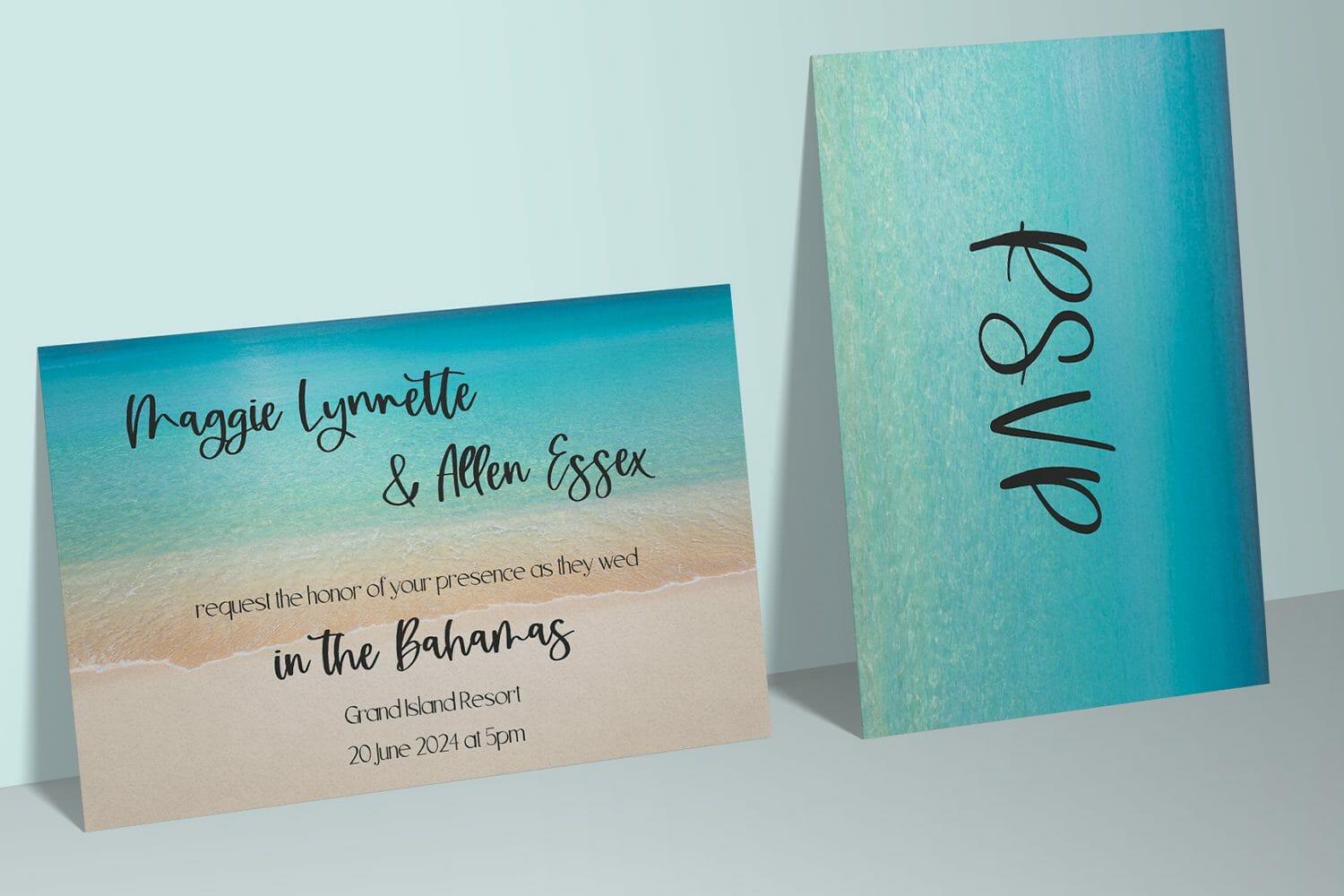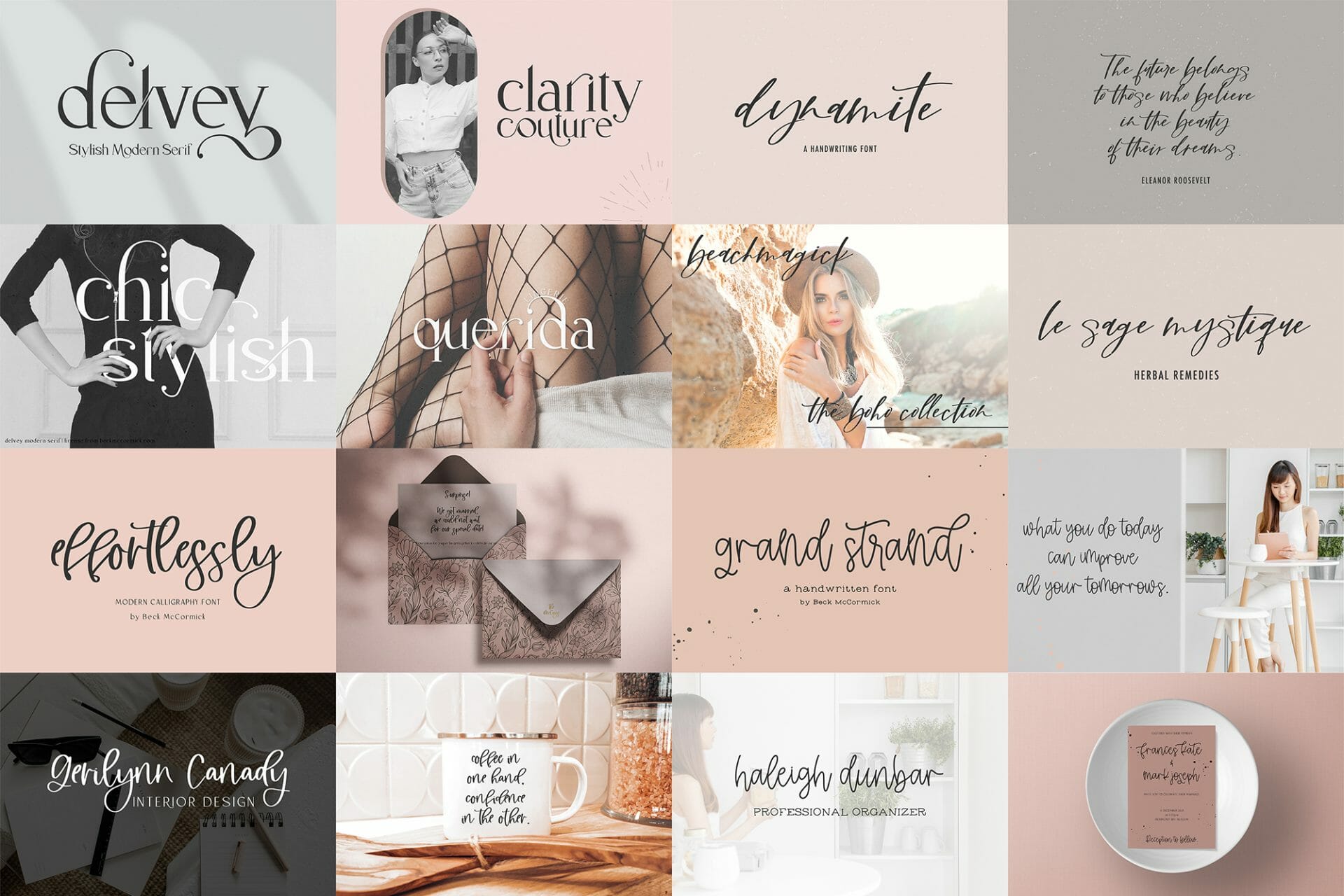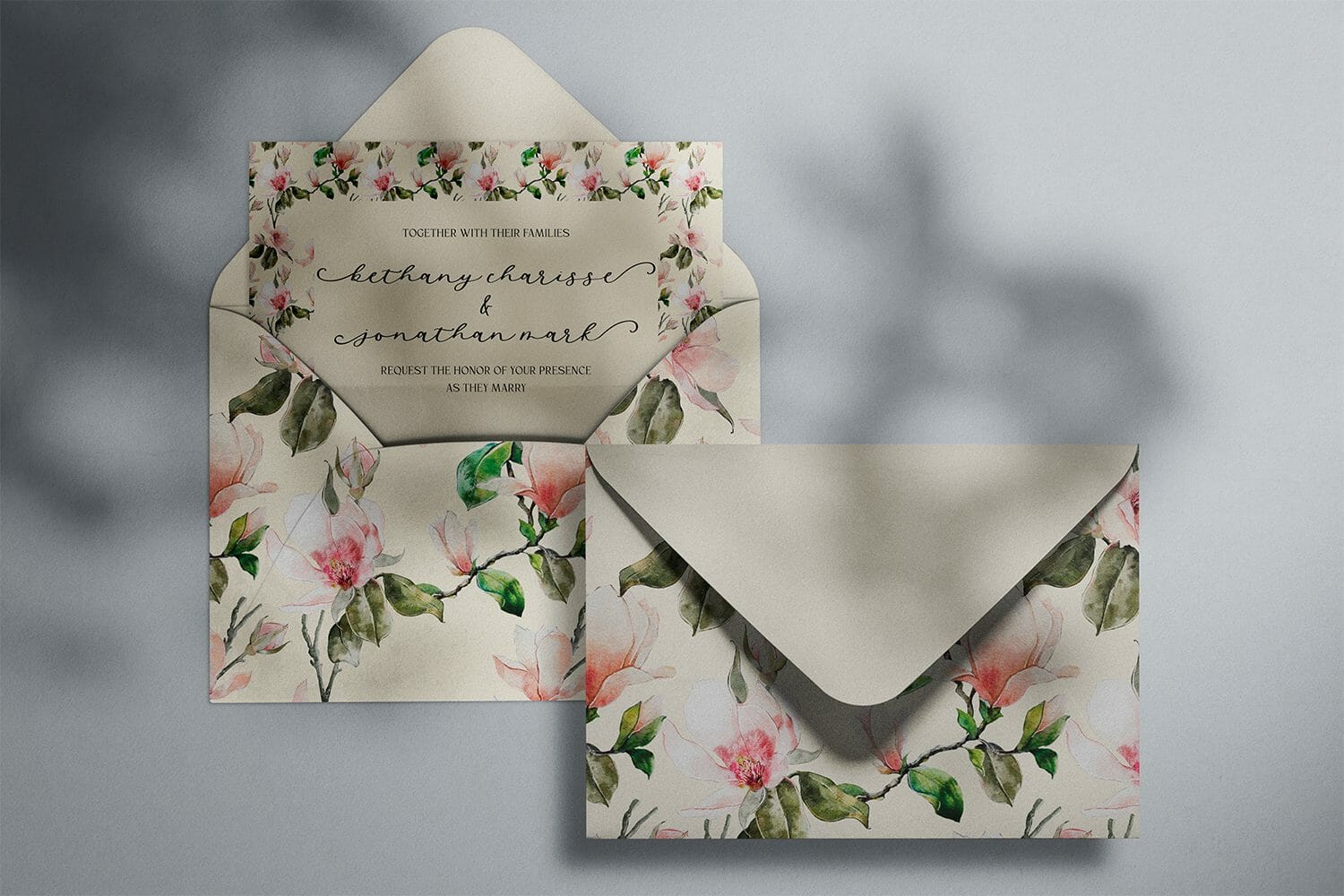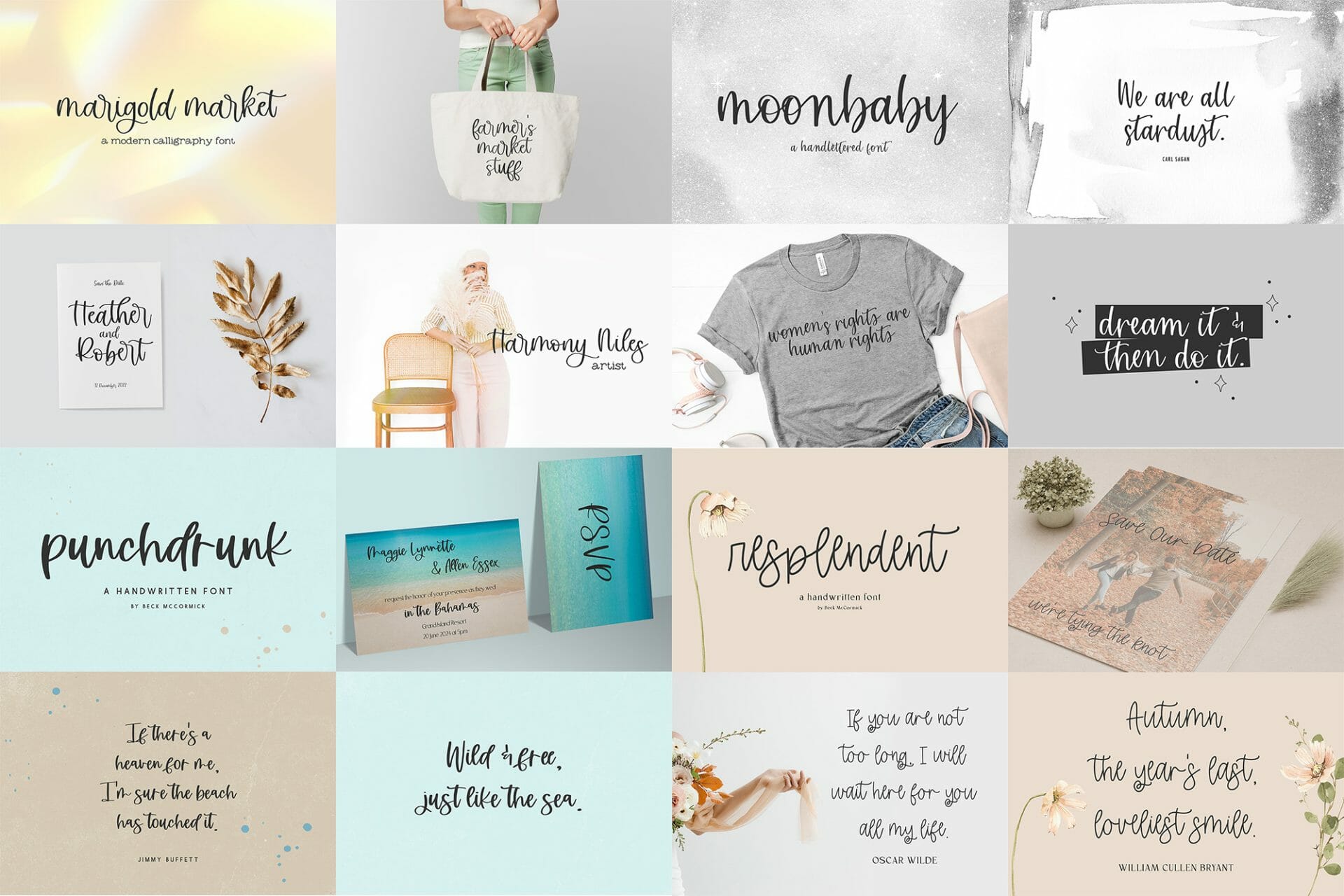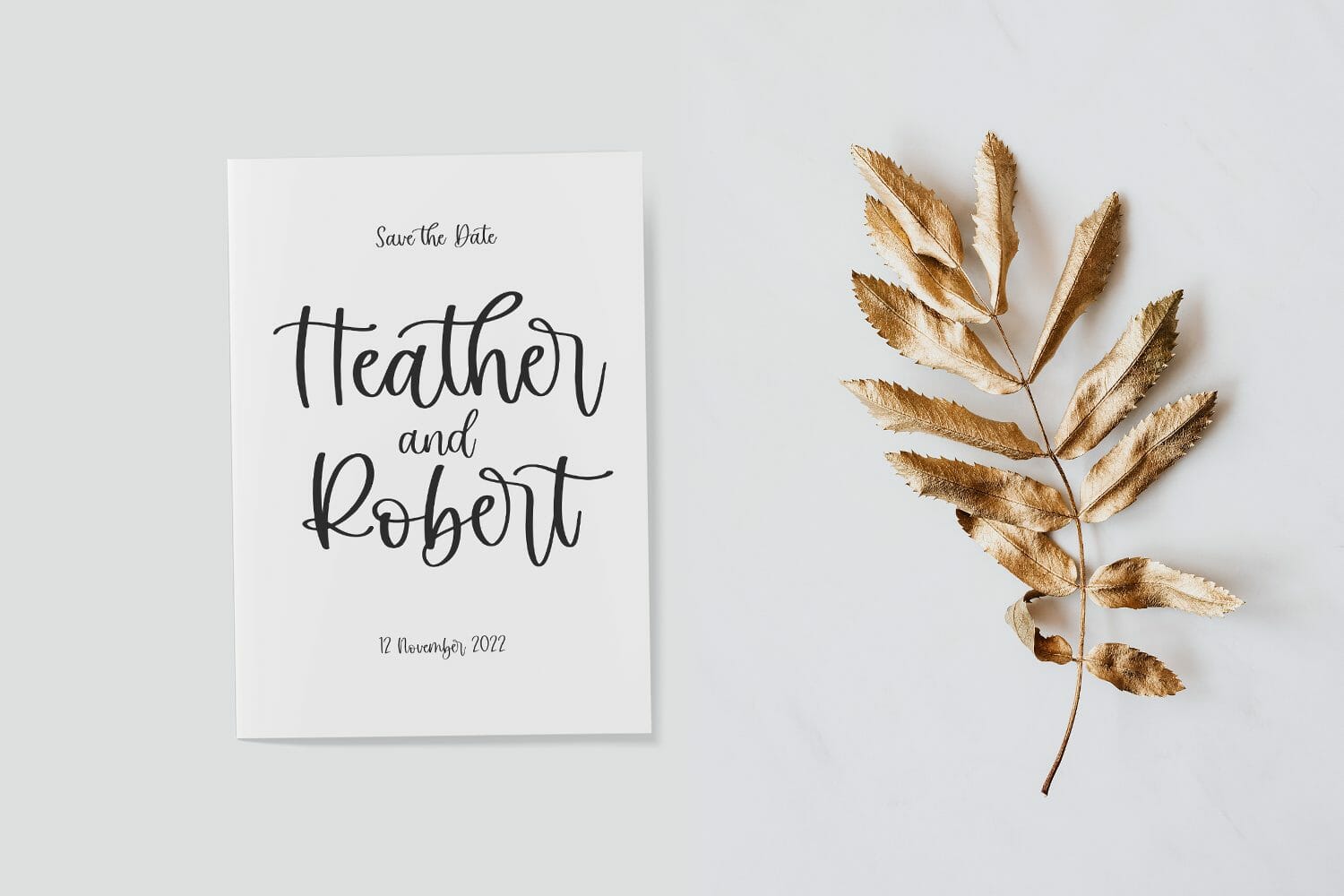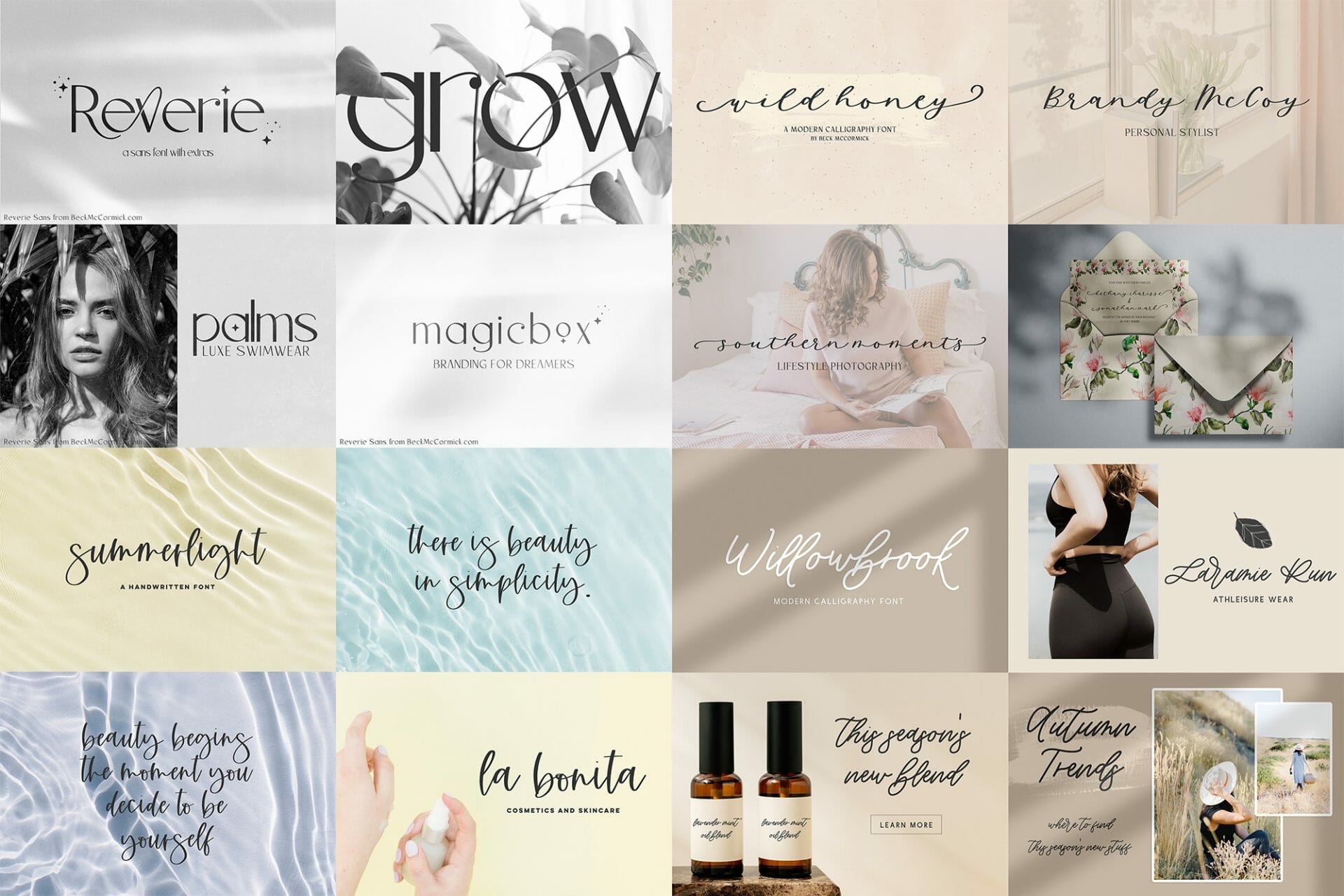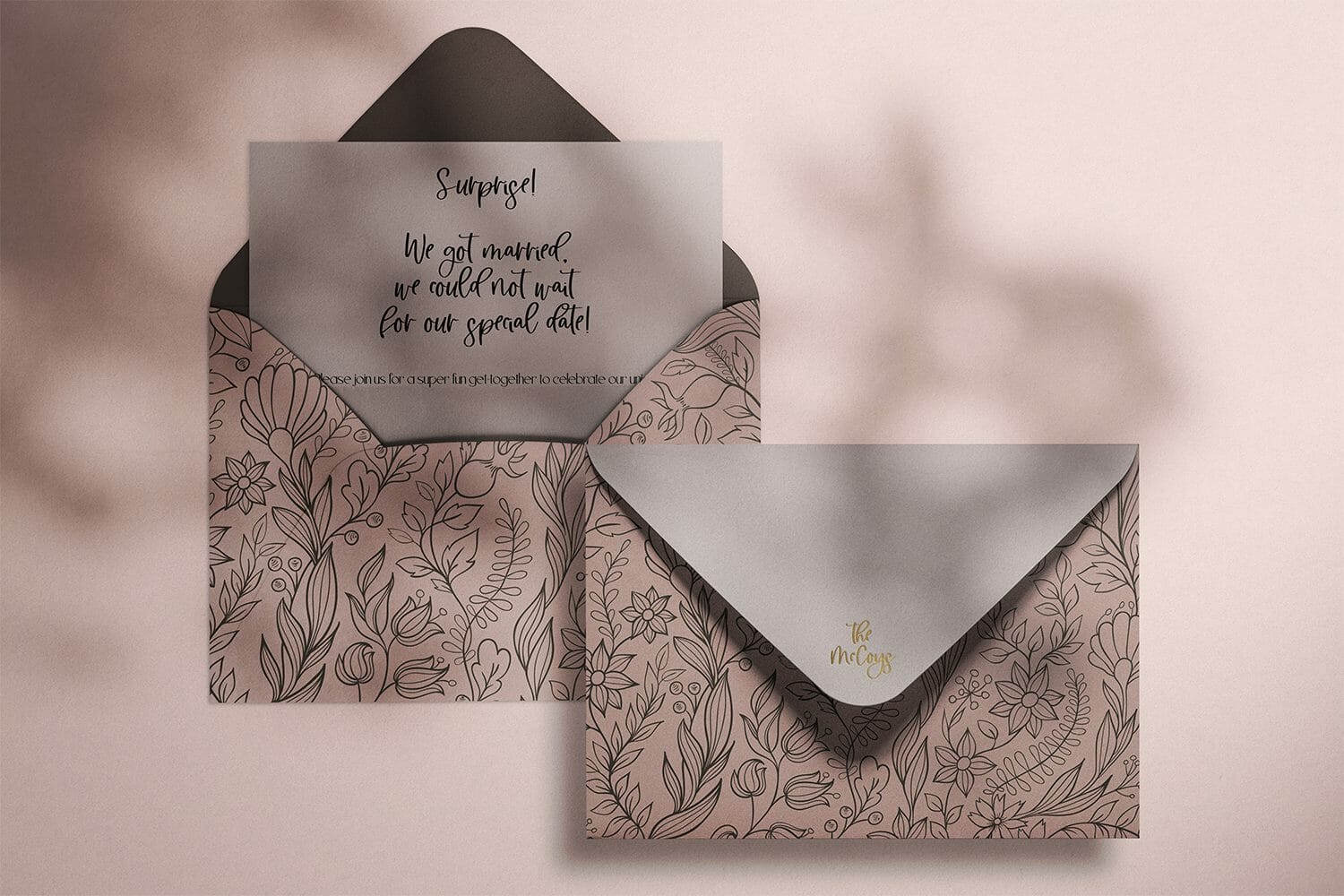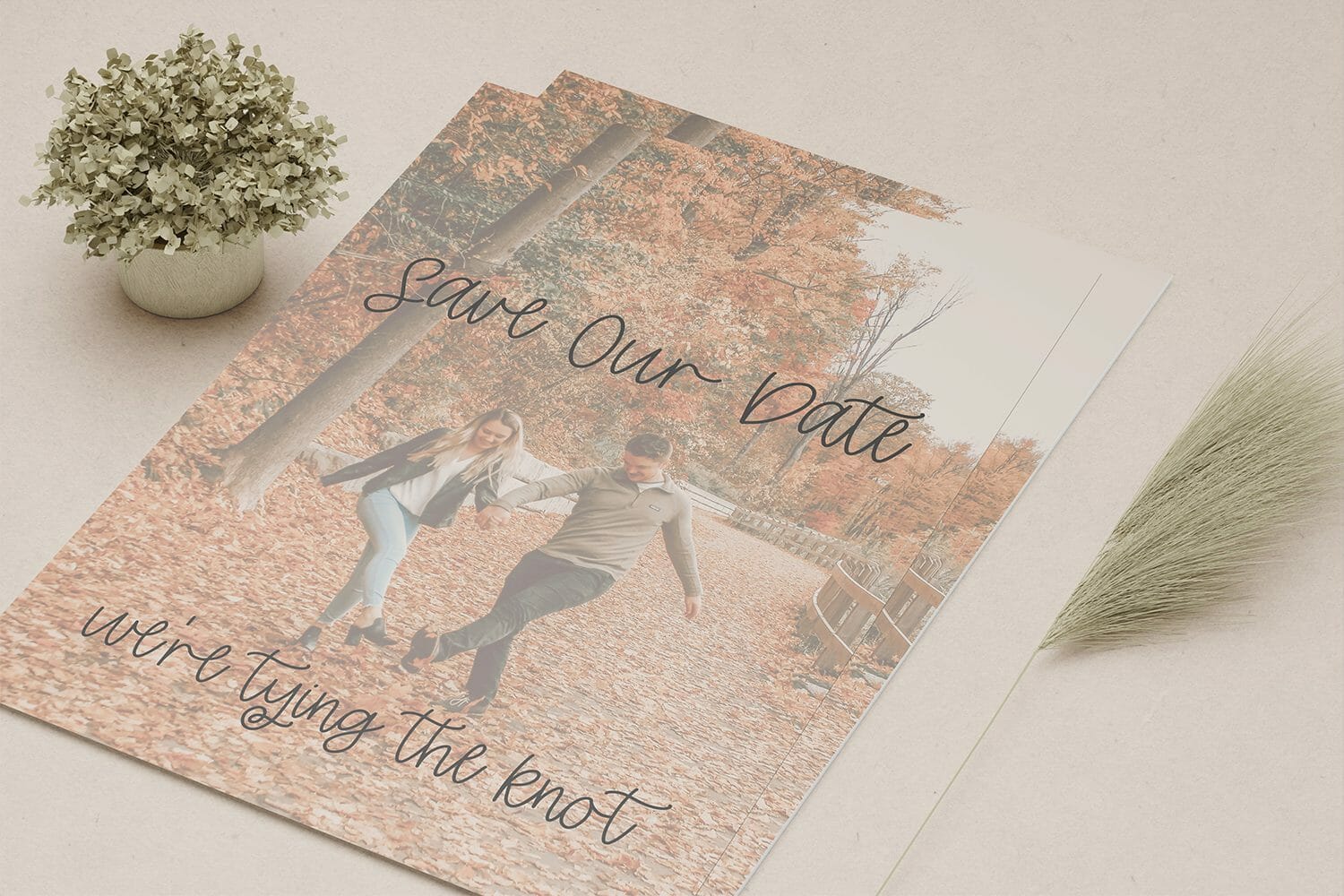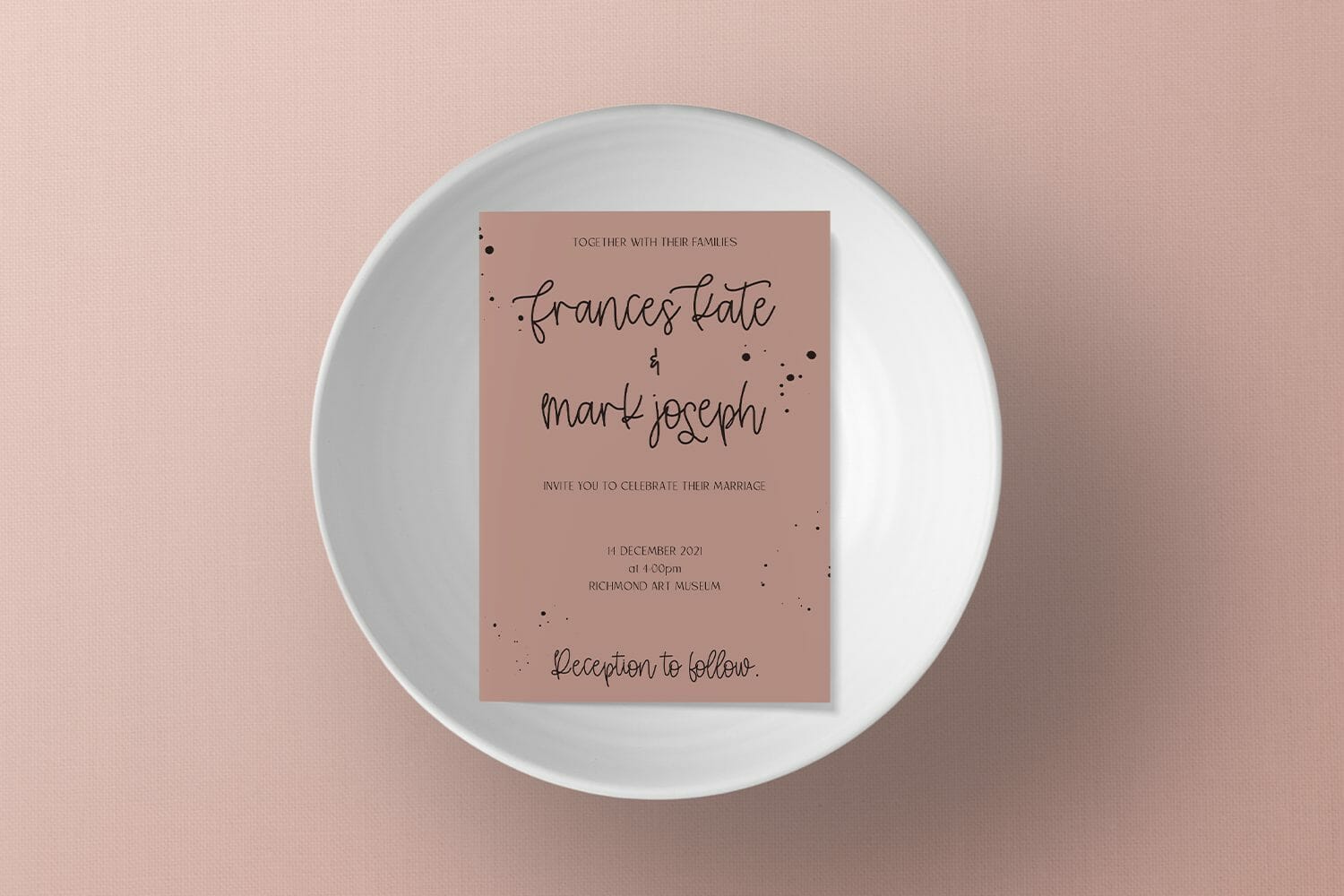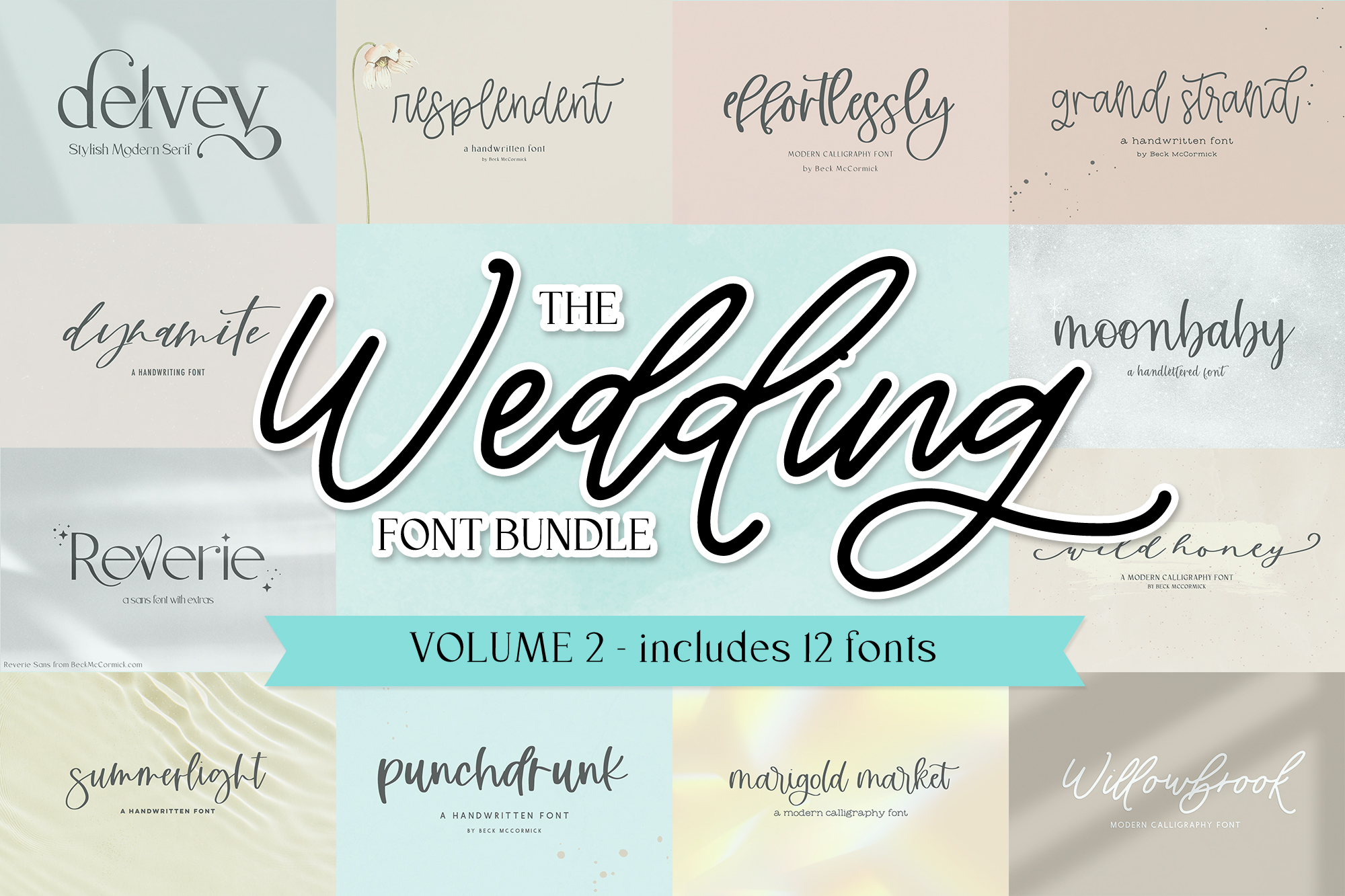
The Wedding Font Bundle, Volume 2
This font bundle is a beautiful, versatile set of handwritten fonts perfect for styling save the dates, wedding invitation suites, and other wedding materials like place cards or favors! This bundle includes twelve fonts, and includes script fonts, serif fonts, and sans fonts for a variety of mix and match options. These fonts feature a modern, yet classic, style. You can even use these fonts for crafting with your Cricut or Silhouette machine to DIY your favors and decor.
This bundle includes:
– Delvey Modern Serif
– Dynamite Modern Calligraphy Script
– Reverie Modern Sans
– Resplendent Handwritten Script
– Punchdrunk Script
– Effortlessly Modern Calligraphy Script
– Marigold Market Modern Calligraphy Script
– Grand Strand Handwritten Script
– Moonbaby Handlettered Font
– Wild Honey Modern Calligraphy Font
– Willowbrook Modern Calligraphy Font
– Summerlight Script